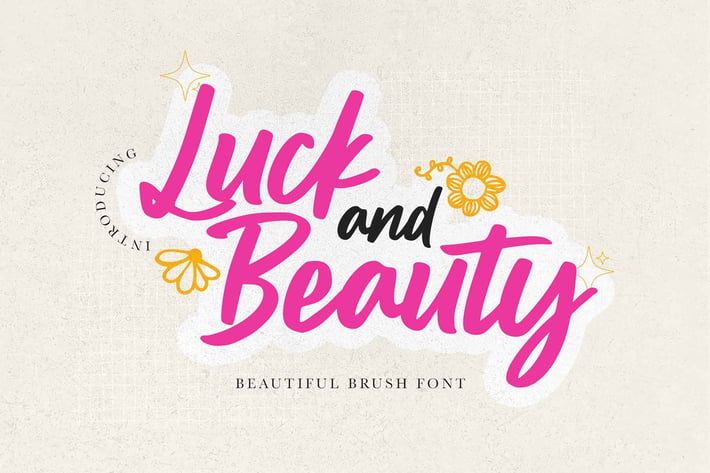
Luck and Beauty - Beautiful Brush Font
Hello Everyone, introduce our new product Font Luck and Beauty Beautiful Brush Font. This is a Textured Natural Style and classy style with a handwritten style.
This font Luck and Beauty is great for your next creative project such as logos, printed quotes, invitations, cards, product packaging, headers, Logotype, Letterhead, Poster, Design this font is great for your creative projects such as watermark on photography, and perfect for logos & branding, invitation,advertisements,product designs, stationery, wedding designs,label ,product packaging, special events or anything that need handwritting taste.
That is has charming, authentic and relaxed characteristic more natural look to your text.